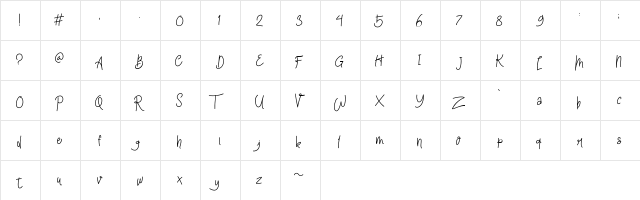
the Brawn Regular
Design Context for the Brawn Typeface
the Brawn is a composed and adaptable typeface that performs quietly and consistently across a wide range of design contexts.